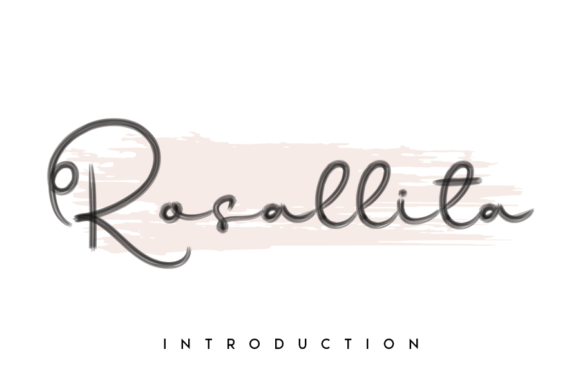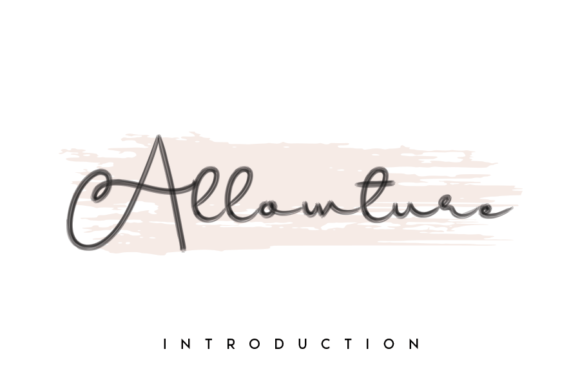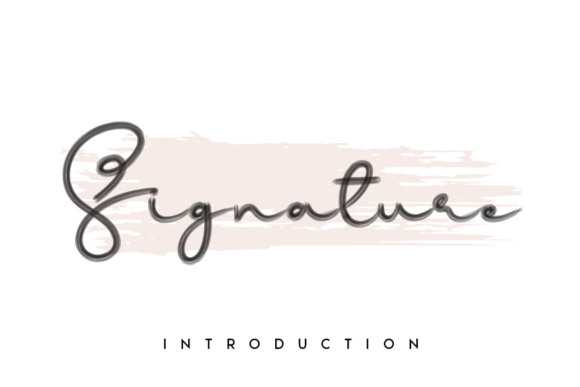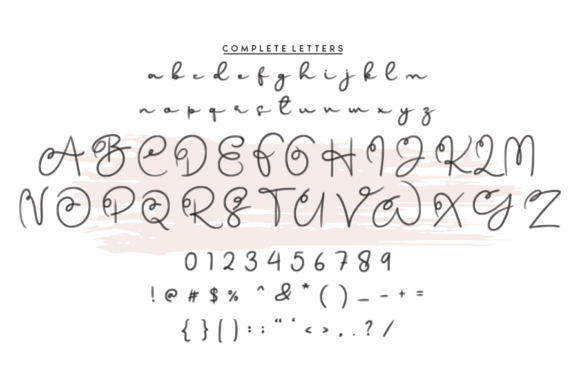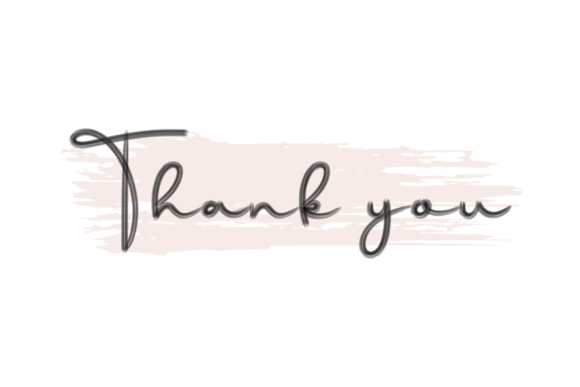
Rosallita Font
About Rosallita Font
Rosallita is a sweet and flowing handwritten font, created with the help of a brush pen. Fall in love with this font and bring your projects to the highest levels!